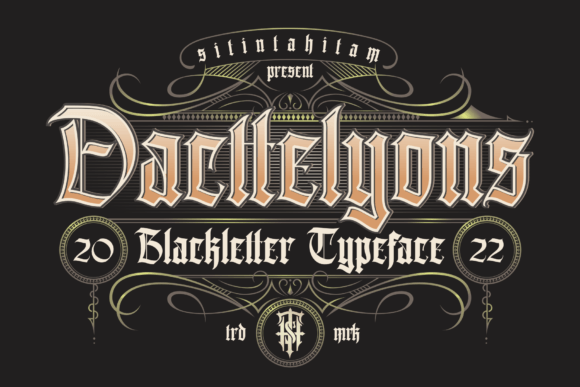
Unleashing the Dark Charm of Typography
As a designer, there’s nothing quite like the thrill of stumbling upon a font that speaks to your creative soul. It’s that moment when the perfect combination of lines, shapes, and character comes together to transport you to another era – or in this case, the gothic era. The Dacttelyons Font is a masterclass in blackletter typography, inspired by the mystique and grandeur of the past.
This enchanting font is more than just a decorative flourish; it’s a versatile tool designed to elevate any graphic design project. Whether you’re crafting branding materials, t-shirts, prints, logos, posters, or packaging, Dacttelyons Font brings a touch of vintage sophistication with its dark, mysterious feel. For designers looking to add an air of sophistication to their work, the Dacttelyons Font is an invaluable asset, capable of transforming even the most mundane designs into works of art.
- Unique Characteristics: Dacttelyons Font features a unique blend of modern and traditional elements, with intricate details and subtle textures that add depth and visual interest to text.
Dacttelyons Font Review
I recently had the chance to work with the Dacttelyons font, and I must say, it has its strengths and weaknesses.
- Unique aesthetic: Dacttelyons has a distinctive, hand-drawn feel that adds a touch of personality to any design.
- Legibility: Despite its unconventional look, the font is surprisingly easy to read, especially at larger sizes.
- Character set: The font includes a wide range of characters, including accents and symbols, making it a great choice for multilingual projects.
- Technical limitations: The font is not as precise as some other options, which can lead to issues with alignment and spacing.
- Weight and style consistency: The font’s varying weights and styles can be inconsistent, making it difficult to achieve a cohesive look.
- Font size limitations: At smaller sizes, the font can become difficult to read due to its unique characteristics.
While Dacttelyons is not without its limitations, its unique aesthetic and legibility make it a great choice for designers looking to add some personality to their work. However, it’s essential to be aware of its technical limitations and use it judiciously to achieve the best results.
The Dacttelyons Font is ideal for use in:
- Marketing materials, such as brochures and flyers
- Print design, including business cards and posters